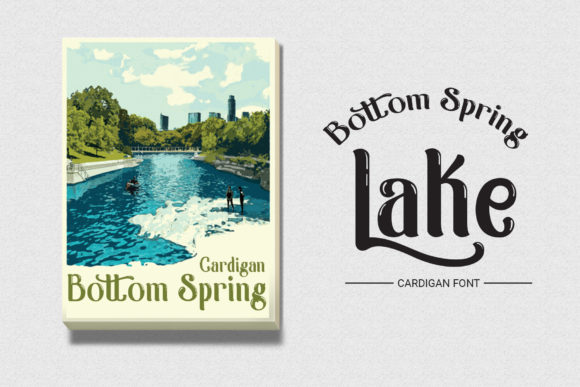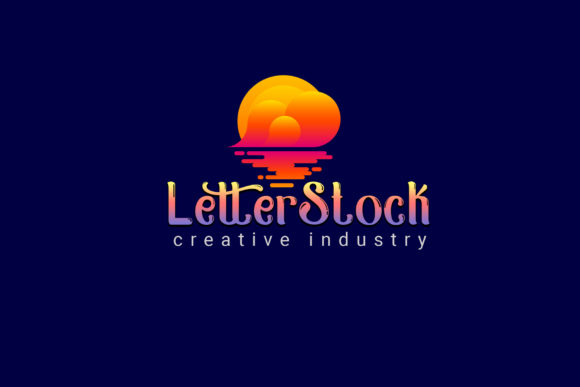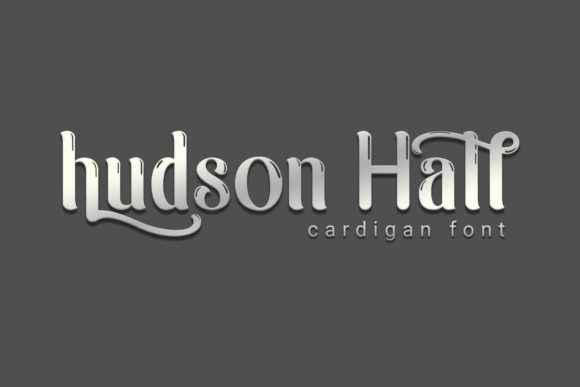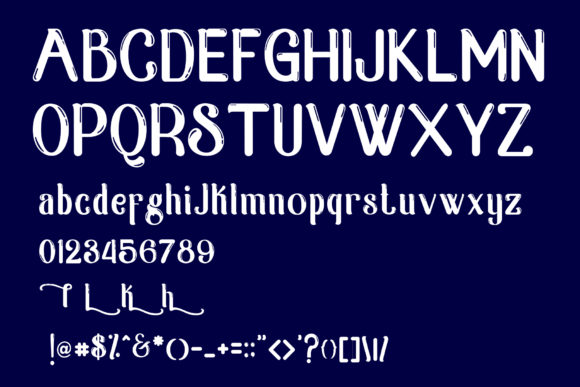
Introducing Cardigan Font: Elevate Your Designs with Sophistication
In the world of typography, fonts play a crucial role in conveying the tone and personality of a brand or design. For designers and crafters looking to add a touch of sophistication to their work, the Cardigan Font is an excellent choice. Inspired by retro swimming pool posters and hand-drawn concepts, this display font is perfect for showcasing designs or products in a professional manner.
The Inspiration Behind Cardigan Font
The Cardigan Font draws its inspiration from the classic retro swimming pool posters that evoke a sense of nostalgia and fun. By combining this aesthetic with a hand-drawn concept, the font achieves a unique balance of playfulness and sophistication. This blend of styles makes Cardigan Font versatile and suitable for a wide range of design applications.
Key Features of Cardigan Font
- Sophisticated Display Font: Cardigan Font is designed to make a statement. Its elegant and refined appearance makes it perfect for headlines, titles, and any design element that requires a touch of luxury.
- Retro yet Modern: The font’s retro inspiration is balanced with a modern approach, making it suitable for both vintage-themed designs and contemporary projects.
- Hand-Drawn Concept: The hand-drawn elements of Cardigan Font add a personal and unique touch to any design, setting it apart from more generic fonts.
- Versatile: Whether you’re working on branding, logos, magazines, films, posters, flyers, or t-shirt designs, Cardigan Font adapts seamlessly to various mediums.
Use Cases for Cardigan Font
The versatility of Cardigan Font makes it an excellent choice for a variety of design projects. Here are some of the most popular use cases:
- Branding: Establish your brand’s identity with a sophisticated and memorable font that reflects your company’s values and personality.
- Logos: Create a lasting impression with a logo that stands out, thanks to the unique and elegant design of Cardigan Font.
- Magazines and Publications: Elevate the visual appeal of your magazine or publication with a font that exudes professionalism and style.
- Films and Video Content: Add a touch of glamour to your film or video titles with a font that captures the essence of your project’s theme.
- Posters and Flyers: Make your posters and flyers stand out with a bold and eye-catching font that grabs attention.
- T-Shirt Designs: Create unique and stylish apparel with Cardigan Font, perfect for fashion brands or personal projects.
Why Choose Cardigan Font?
In a sea of fonts, Cardigan Font stands out for its unique blend of retro charm and modern sophistication. Here are a few reasons why designers and crafters should consider adding it to their toolkit:
- Unique Aesthetic: The font’s distinctive style ensures that your designs will have a unique look that sets them apart from the competition.
- Ease of Use: Designed with usability in mind, Cardigan Font is easy to read and works well in various sizes and colors.
- Professionalism: The sophisticated nature of Cardigan Font makes it an excellent choice for professional projects that require a high level of design quality.
| Font Name | Cardigan Font |
| Author | Gumacreative |
Cardigan Font is a versatile and sophisticated display font that can elevate any design project. Its unique blend of retro inspiration and modern style, combined with its hand-drawn concept, makes it a valuable addition to any designer’s or crafter’s toolkit. Whether you’re working on branding, logos, magazines, films, posters, flyers, or t-shirt designs, Cardigan Font is sure to bring a touch of professionalism and elegance to your work.